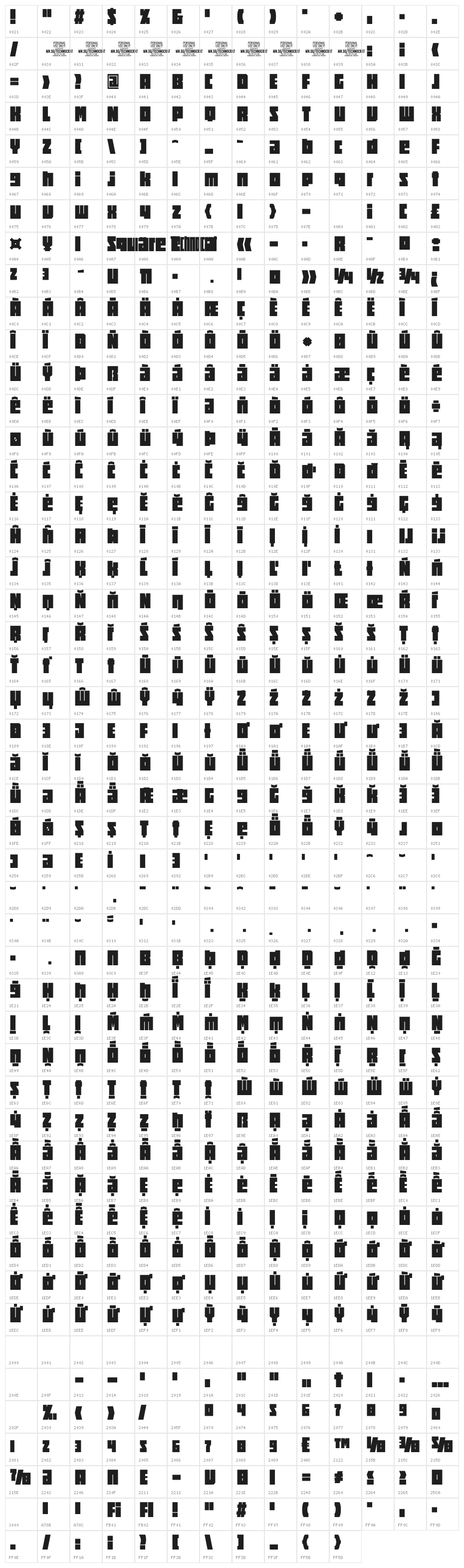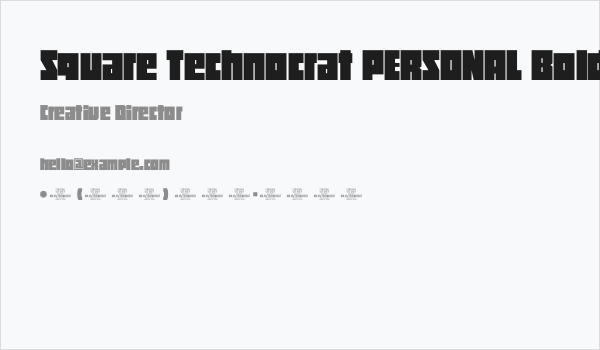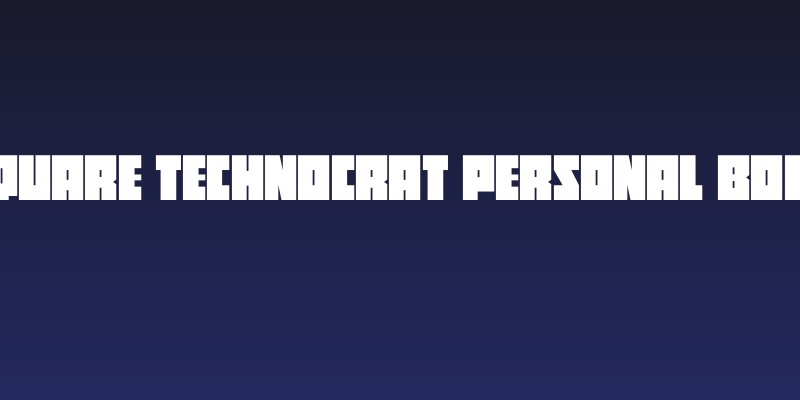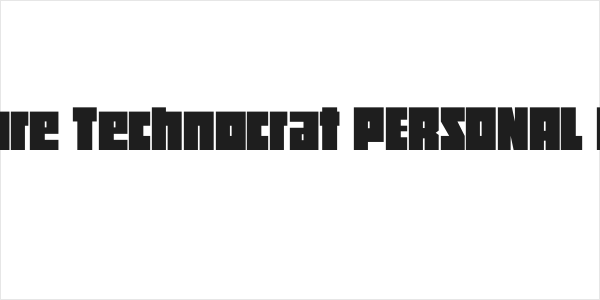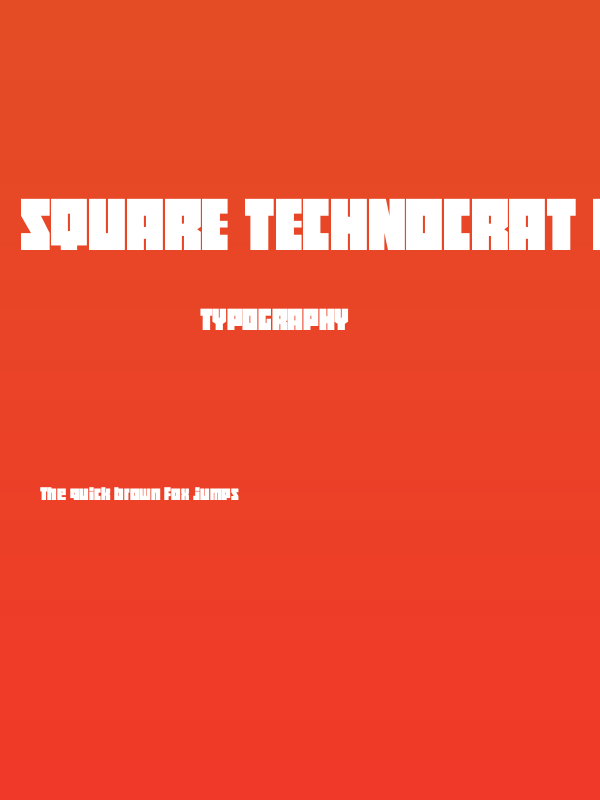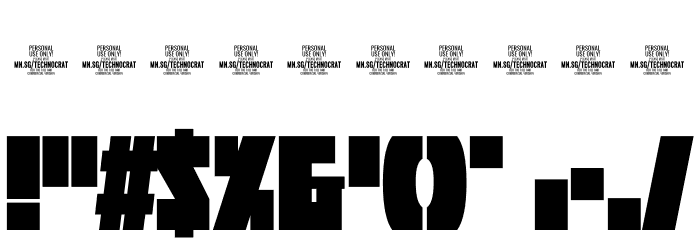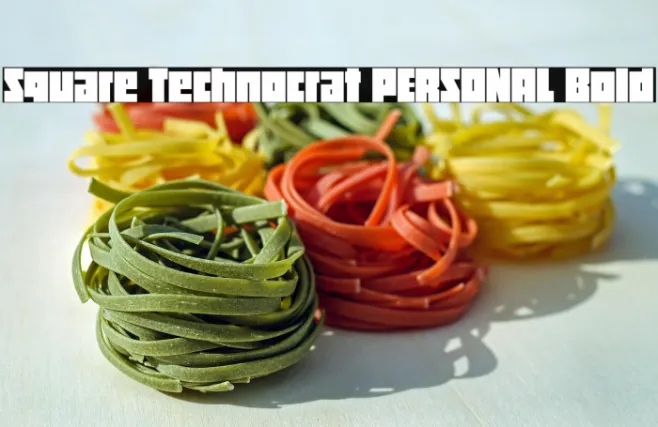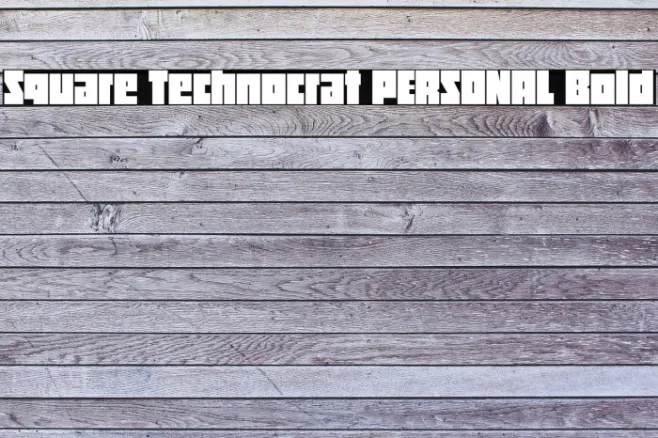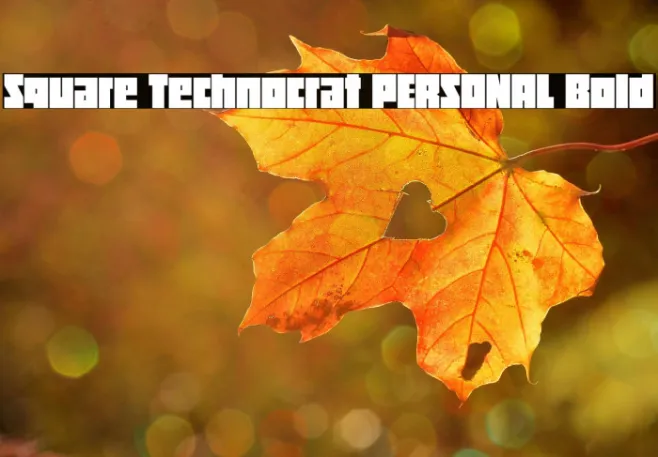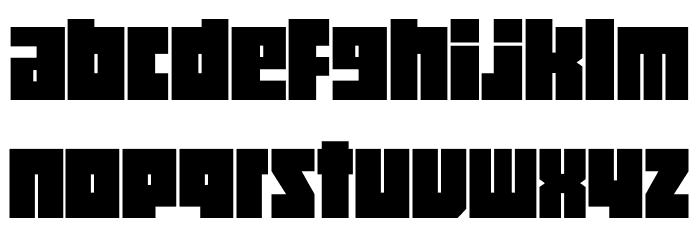
Square Technocrat PERSONAL Bold Font
Square Technocrat PERSONAL Bold Description
This font features a bold, geometric design with a strong, square structure. Each character is crafted with sharp angles and a uniform thickness, creating a cohesive and impactful visual presence. The uppercase and lowercase letters maintain a consistent style, emphasizing the font's modern and industrial aesthetic. The numerals and special characters are equally robust, ensuring versatility across various applications. Its boldness and distinct shape make it ideal for attention-grabbing designs.